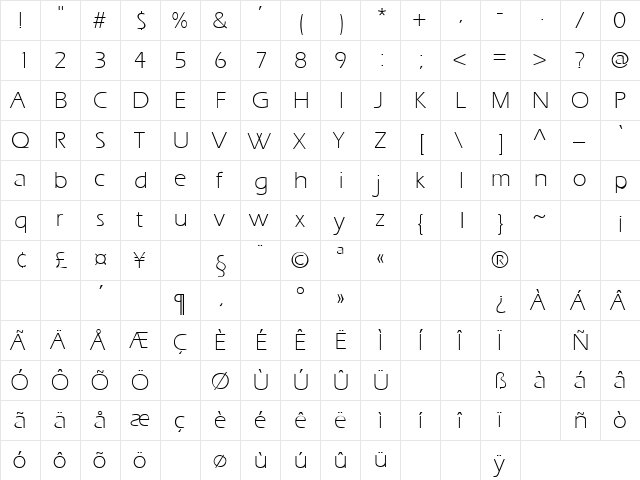
Presence 3 Regular
Design Context for Presence 3 Typeface
Presence 3 is a composed and adaptable typeface that performs quietly and consistently across a wide range of design contexts.